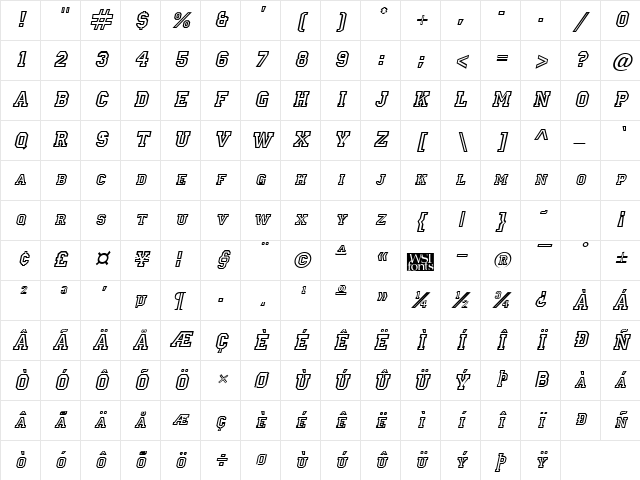
Letterman Italic
Design Context for Letterman
Letterman is a composed and adaptable typeface that performs quietly and consistently across a wide range of design contexts. The slanted form adds forward momentum and visual energy.
Pro Tip: Use Letterman for emphasis, pull quotes, and subheadings where its slanted energy can add rhythm to the layout.